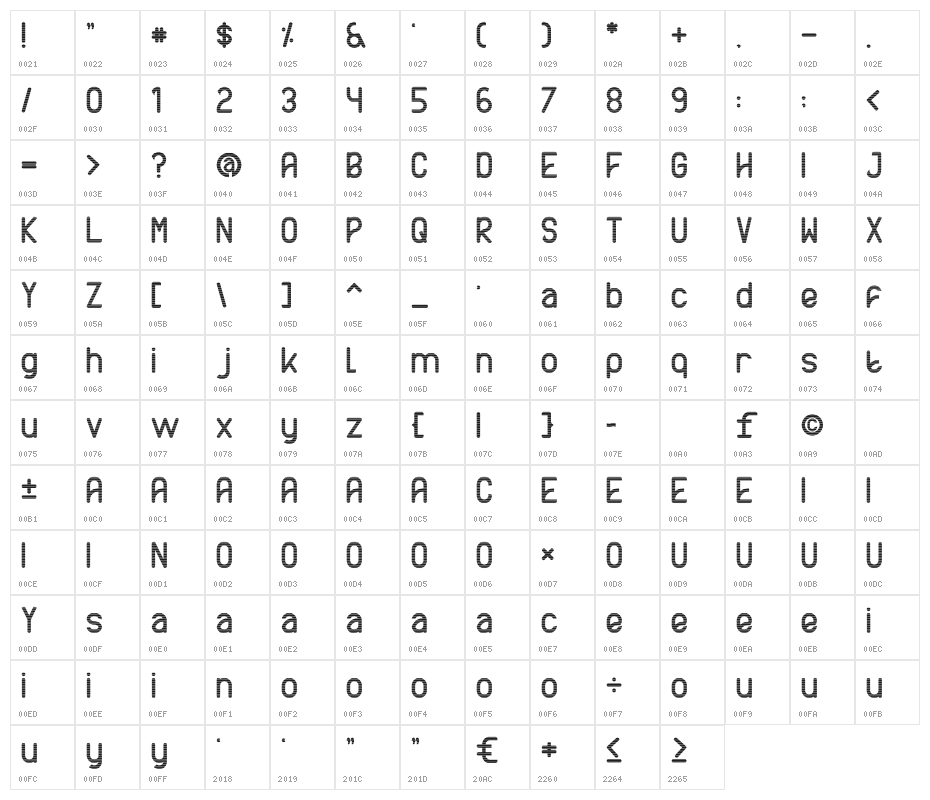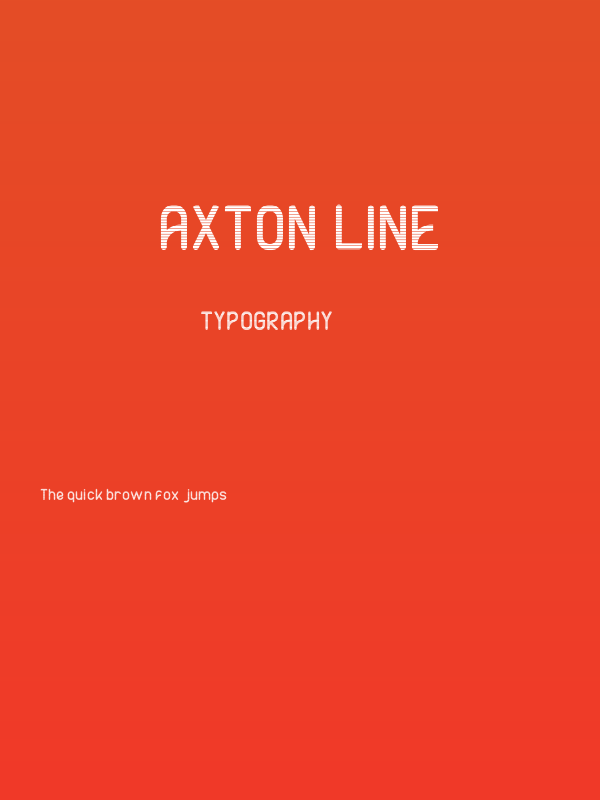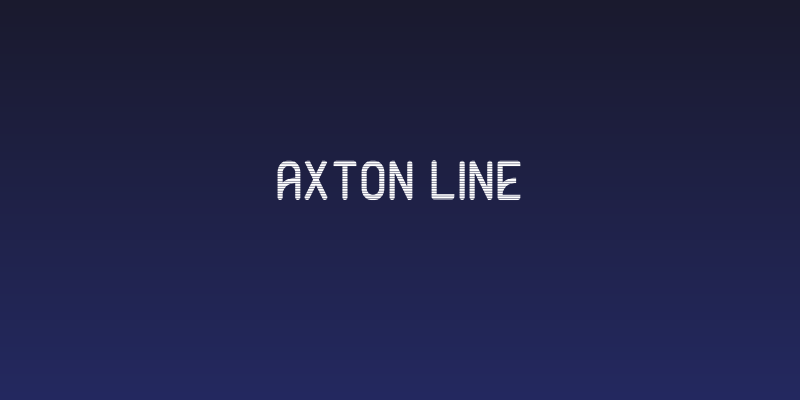
AXTON Line Font
AXTON Line Description
This font features a unique design characterized by horizontal lines cutting through each character, creating a striped effect. The letters are bold and geometric, with rounded edges that soften the overall look. The uppercase and lowercase letters maintain a consistent style, ensuring readability while adding a modern twist. Numbers and special characters follow the same design principles, making them easily recognizable. The font's distinct appearance makes it suitable for projects that require a contemporary and eye-catching typeface.
| Proposed Projects | Ideal for branding, posters, and digital media where a modern and striking appearance is desired. |